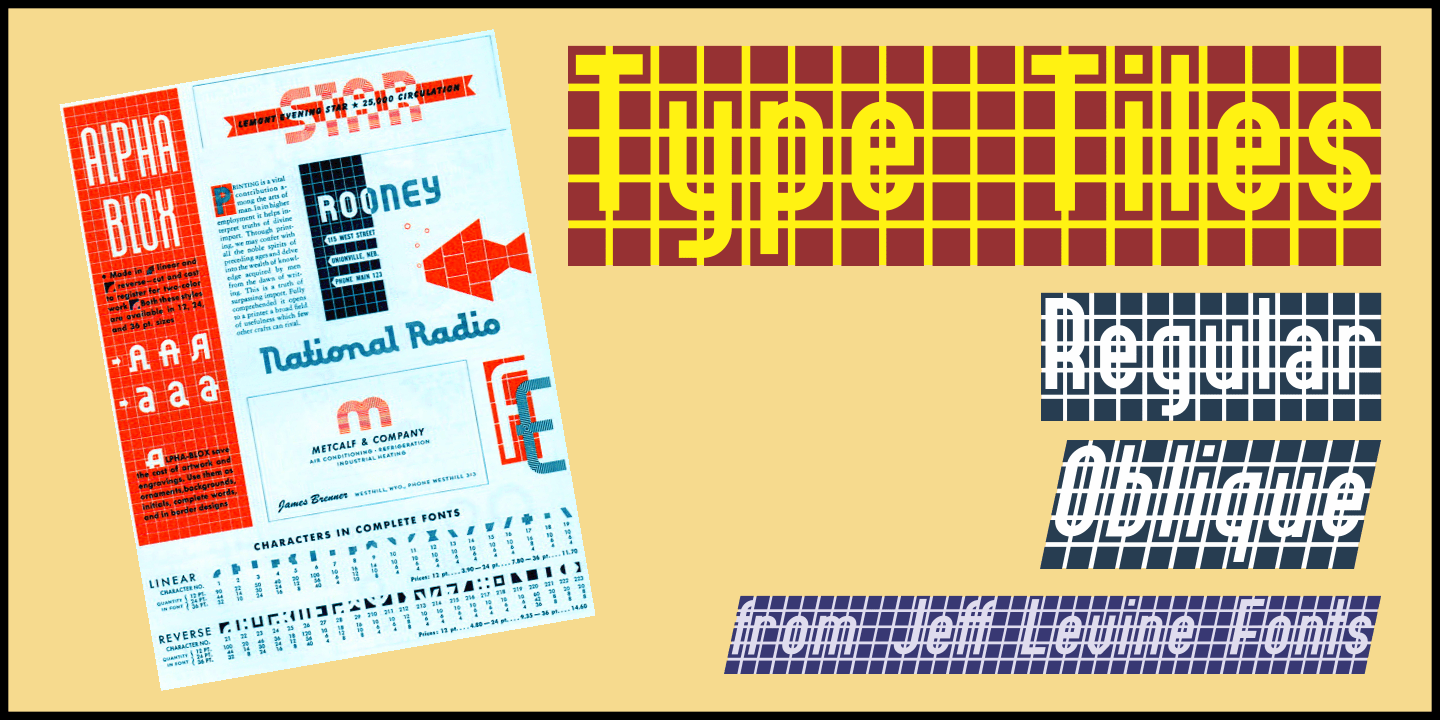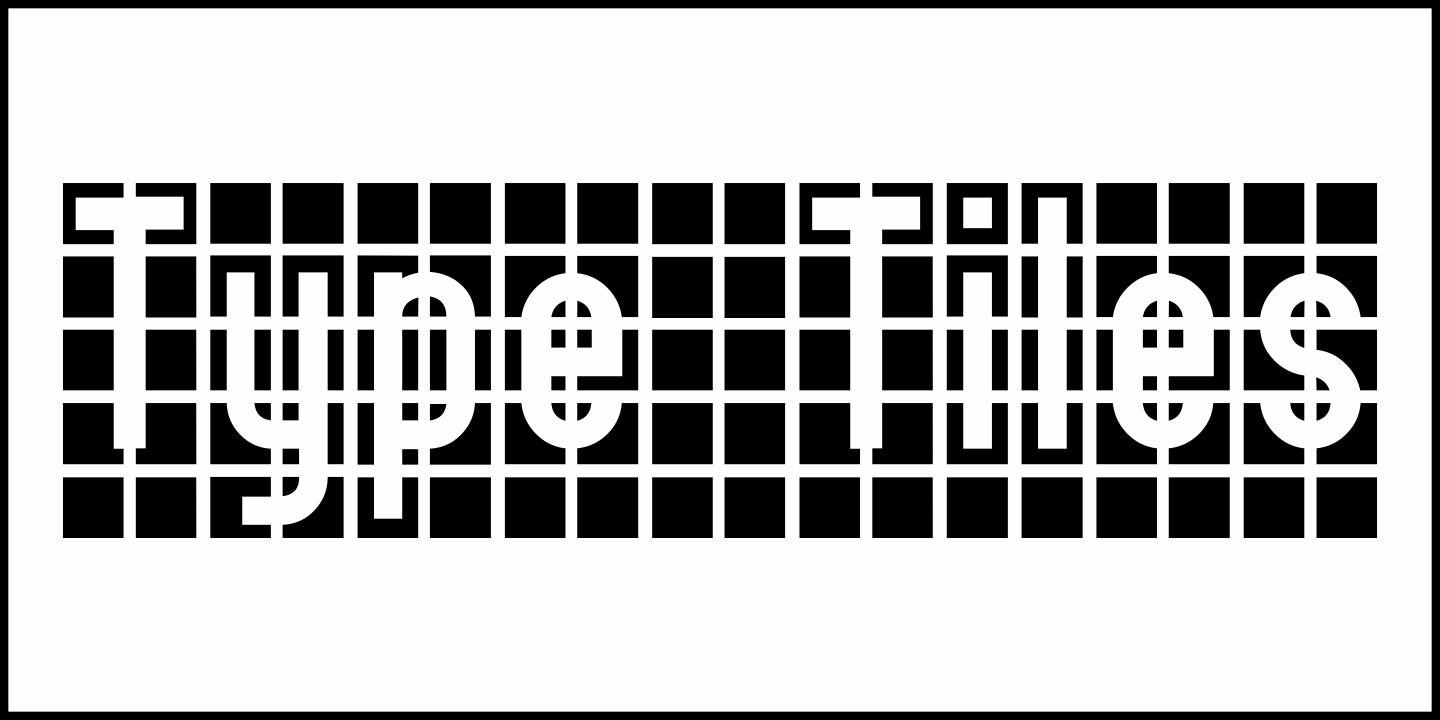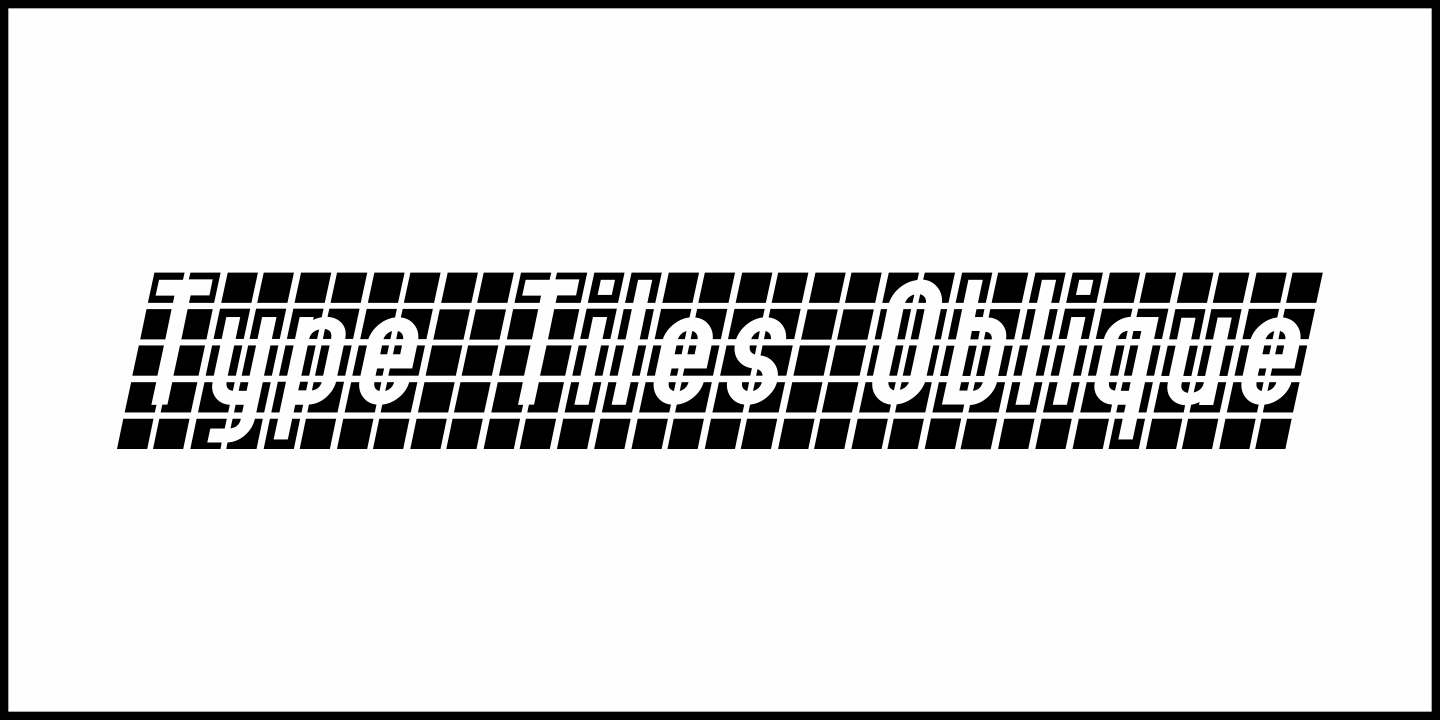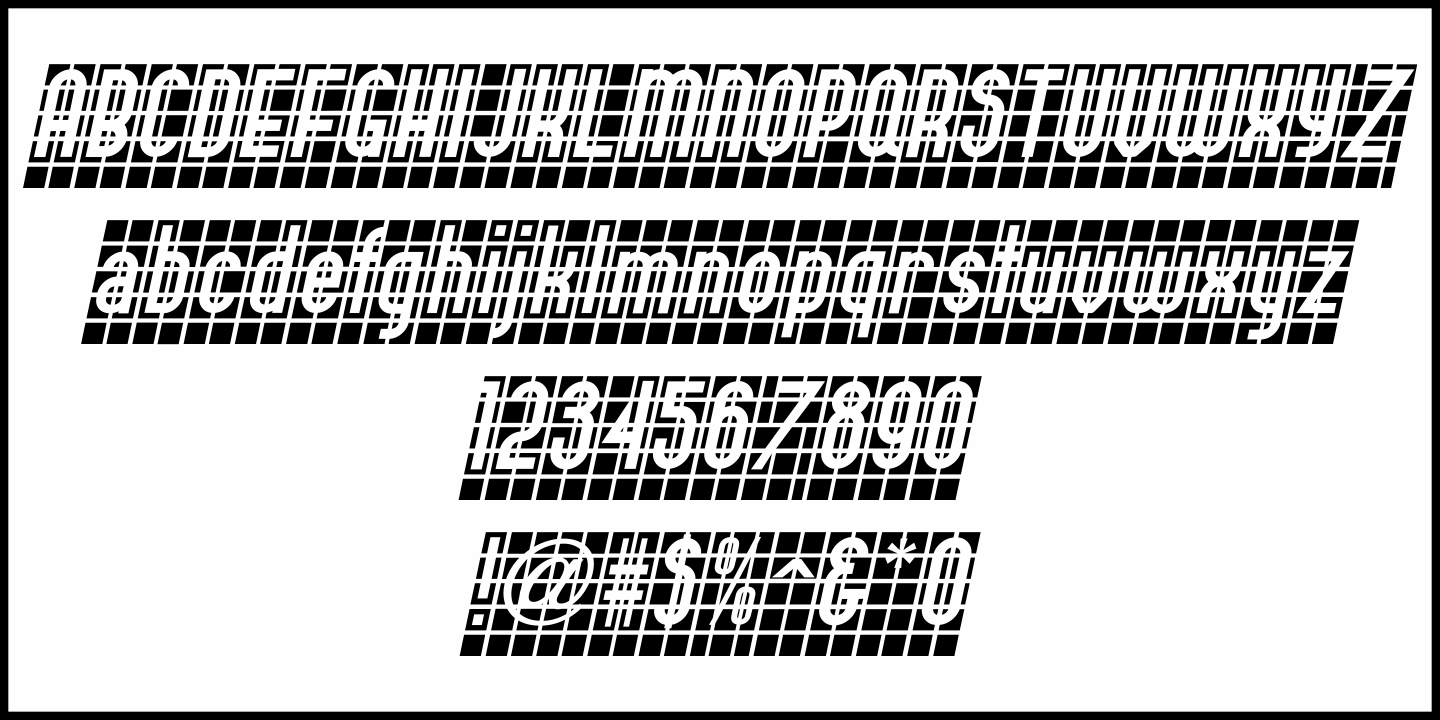
Type Tiles
Type Tiles JNL is based on a 'completed' version of 'Alpha-Blox' by American Type Founders, circa 1944. The capitals, lower case and numerals shown in the sample sheet put out by ATF depicted type made with five-high blocks comprised of modular units spaced two points apart.
These units could be combined in varying ways to create custom type of varying heights and widths and was available for purchase in both linear (multi-line) and reverse (white on black) formats.
Using the 'reverse' model shown on the sample sheet, all of the characters were re-created digitally, and missing punctuation, foreign characters and other glyphs found in a basic computer font were drawn and added. The 'J' and 'T' in the type sample had truncations, so a more complete character was created for each of those letters.
For those wanting an unbroken string of words or blank end caps, there is a double column space on the vertical bar key. A single column space is located on the broken bar key for shorter end caps.
Type Tiles JNL is available in both regular and oblique versions.